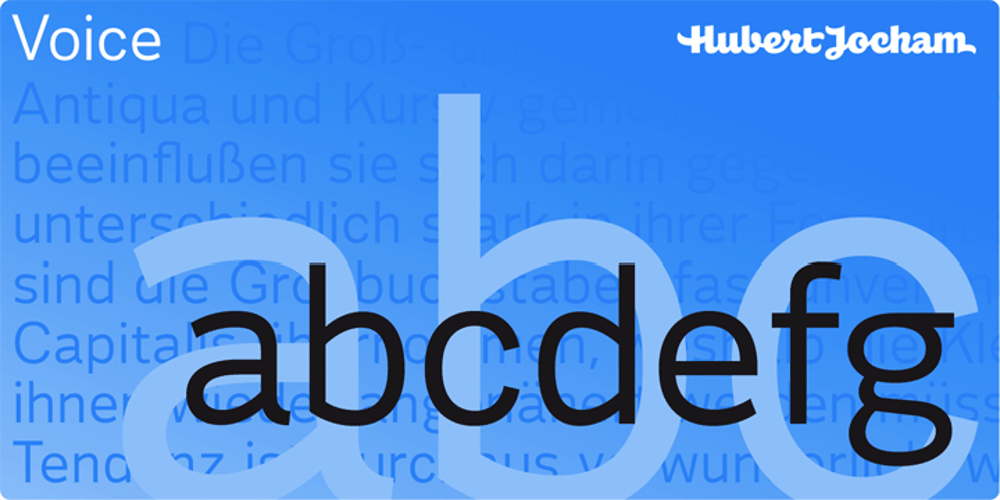
Voice
Voice font
Voice Font Family was designed by Hubert Jocham and published by Hubert Jocham Type. Voice contains 18 styles and family package options. In comparison to most of my typefaces that tend to be fairly expressive, I wanted Voice to be simple, effective and easy to use. Voice was designed to work well in a wide range of sizes, and also in narrow tight columns with a wide range of weights. Those are some criteria for a good corporate typeface that I could clearly see in all my corporate branding projects. It is not that a brand needs all the weights but some appropriate weights can be chosen from that wide range. In copy you should not use heavier than Heavy. ExtraBold and UltraBold work best in display. Recommended uses: corporate branding, magazines and other publications.